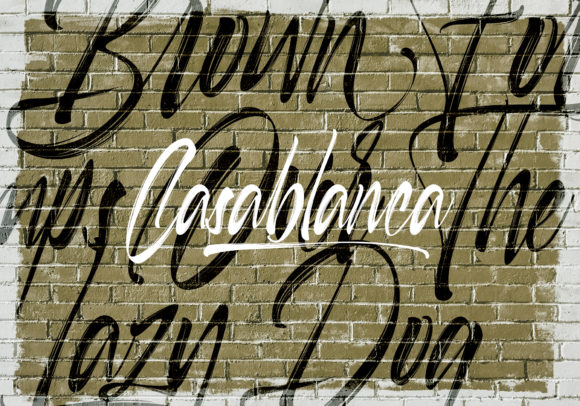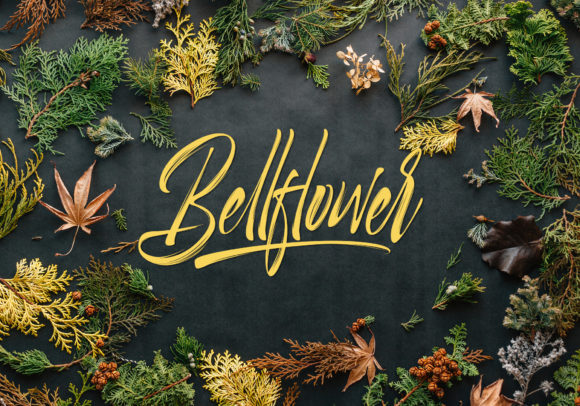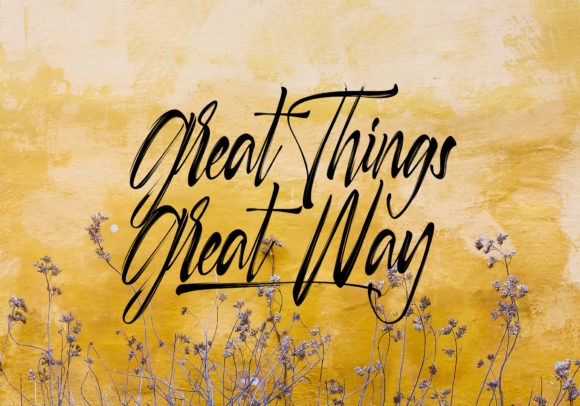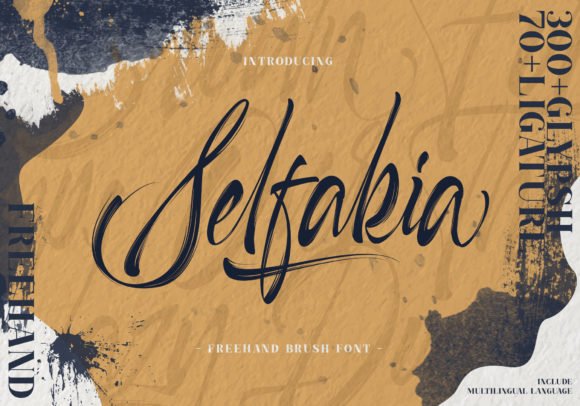
Introduction to Selfakia Font
Selfakia is a bold and powerful script with an authentic twist.
Use this magnificent typeface to turn any design idea into a piece of art .
Selfakia Font offers exceptional quality and versatility, making it a valuable addition to your design toolkit. Whether you’re creating for personal projects or commercial use, Selfakia Font delivers professional results.